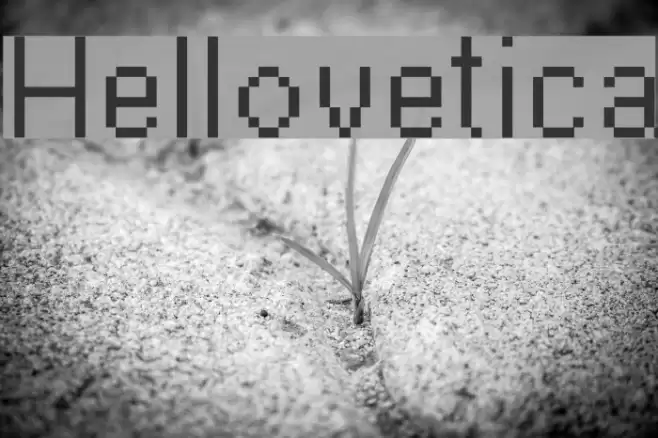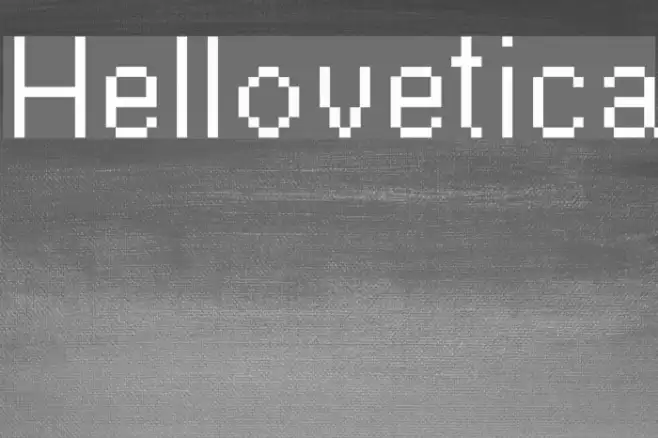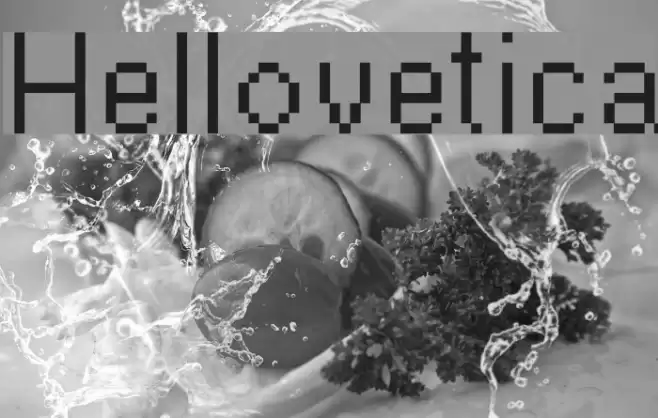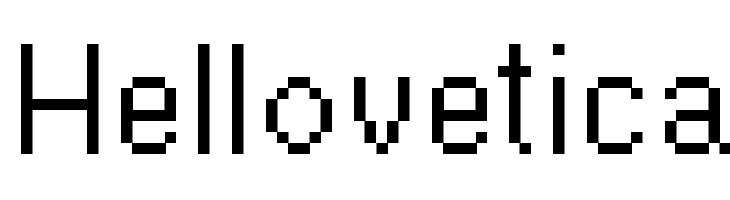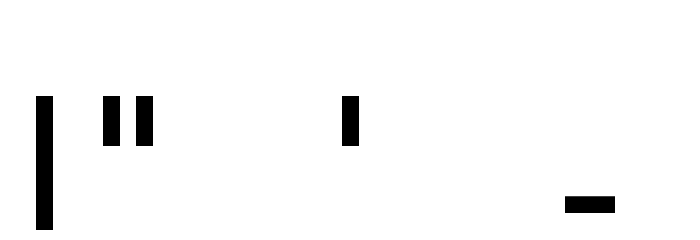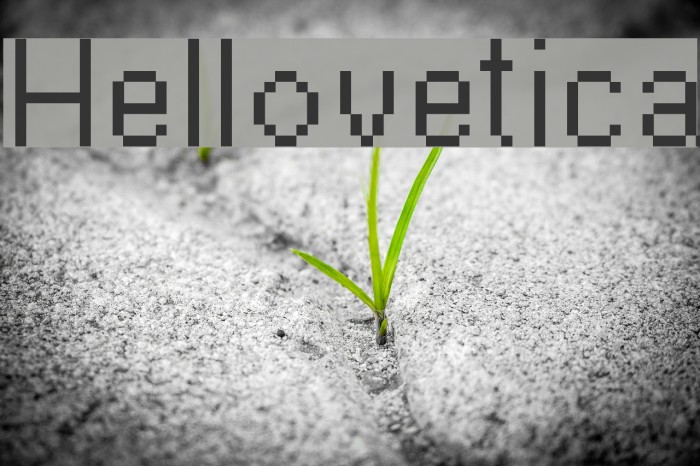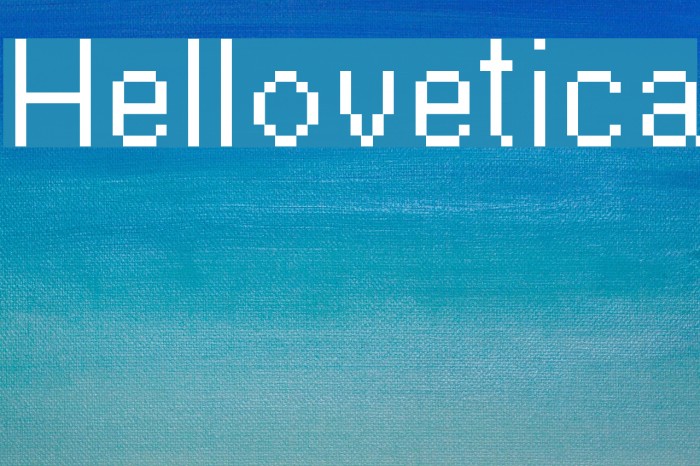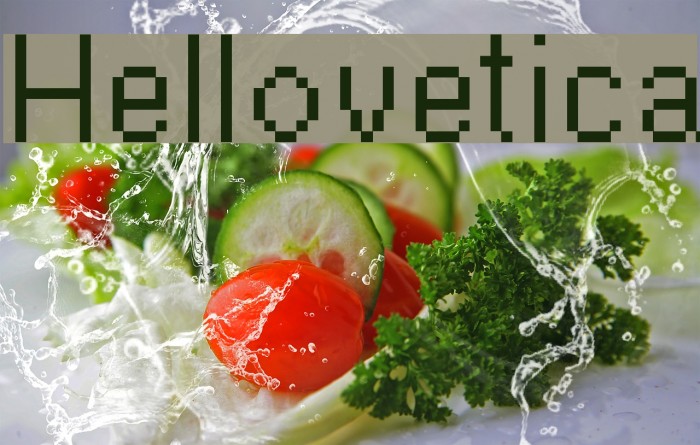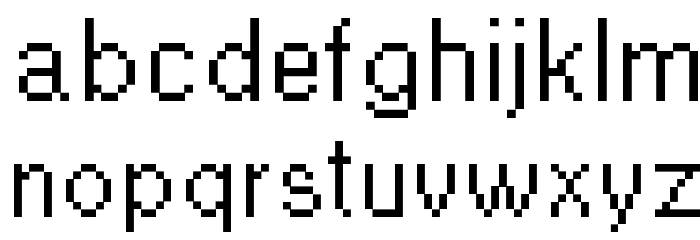
Hellovetica Font
Hellovetica Description
This font features a pixelated, grid-like design reminiscent of early digital displays and retro video games. Each character is constructed with uniform square blocks, creating a distinct, geometric appearance. The uppercase and lowercase letters maintain a consistent height and width, contributing to a monospaced feel. The font's simplicity and clarity make it highly legible, even at smaller sizes. It includes basic punctuation and special characters, adhering to the same pixelated style. The overall aesthetic is both nostalgic and modern, appealing to projects that require a digital or tech-inspired look.
A pixelated, grid-like font inspired by retro digital displays from Uncategorized fonts.
- Proposed Projects: Ideal for video game design, tech-themed posters, digital art projects, and retro-style branding.
- Overall Style: Retro, Digital
- Use Case: Headlines, Logos, Digital displays